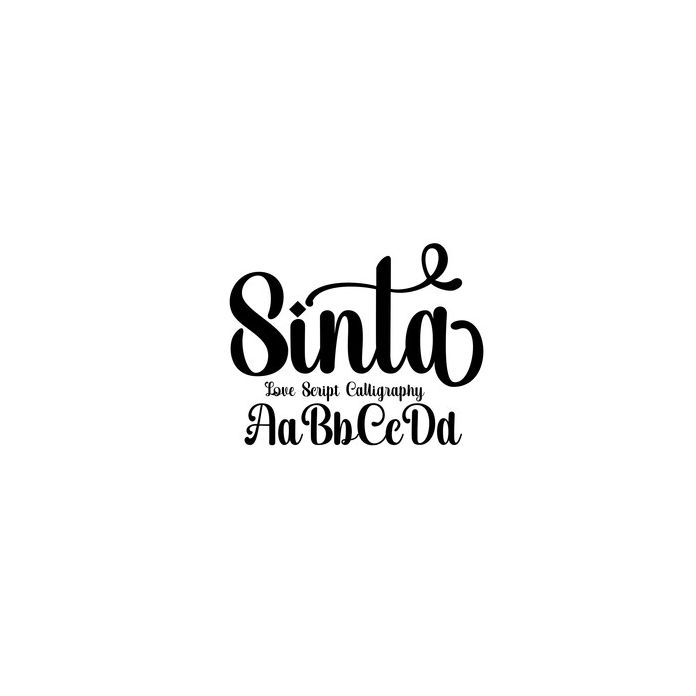
Sinta is my favorite style for inspiration for women's calligraphy style with an original and natural look, very casual for today's women's style. Perfect for projects, products, crafts, invitations and personalization. Includes alphabet, numbers, and punctuation.